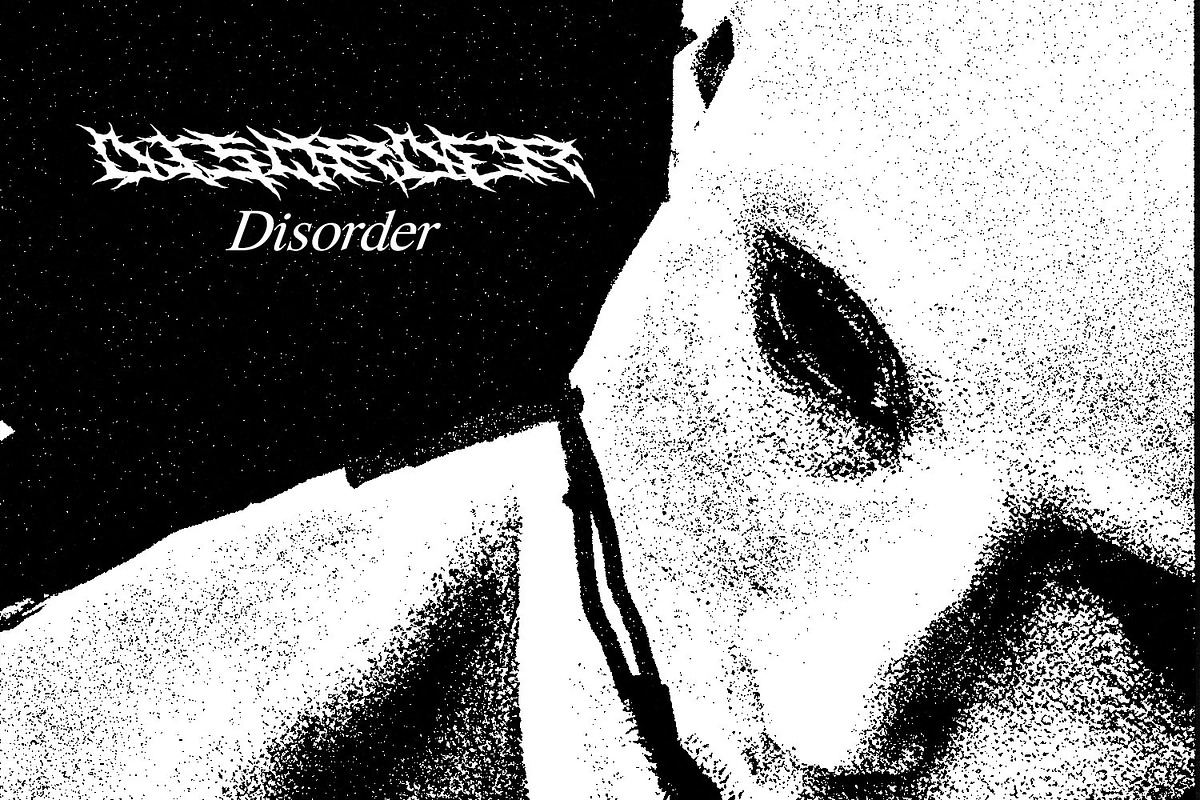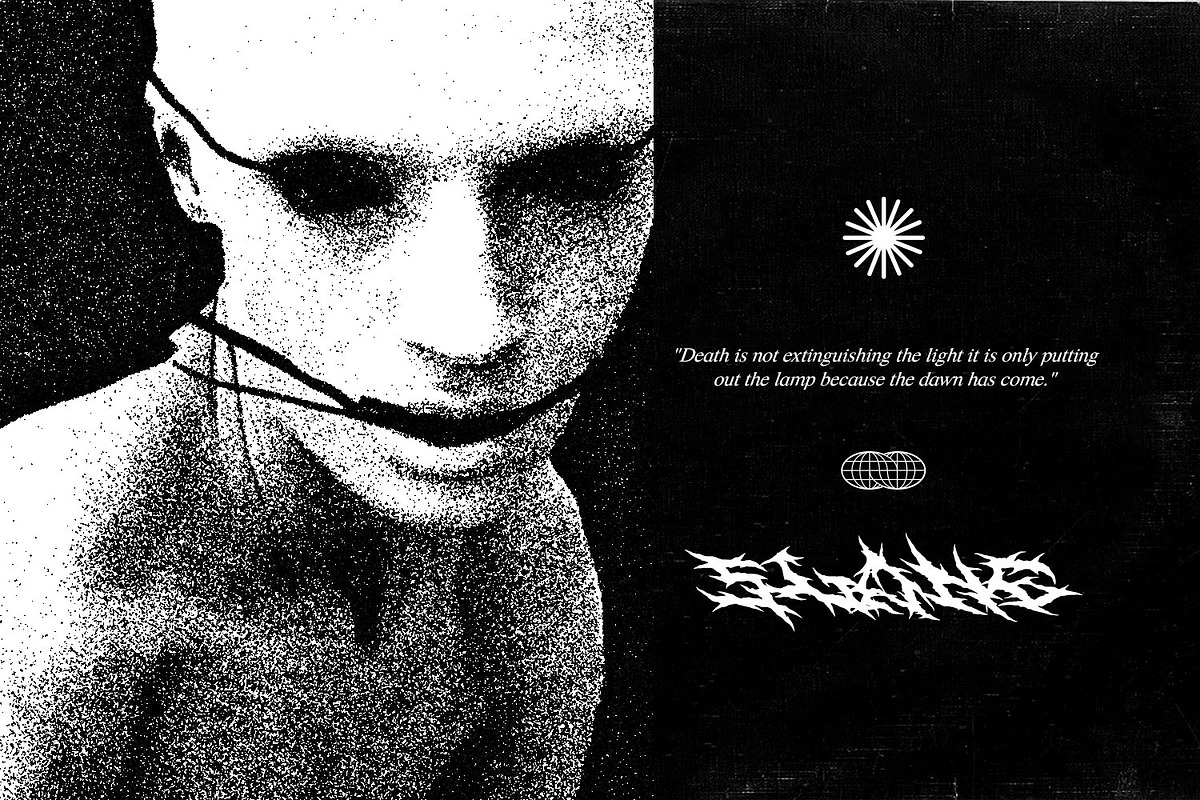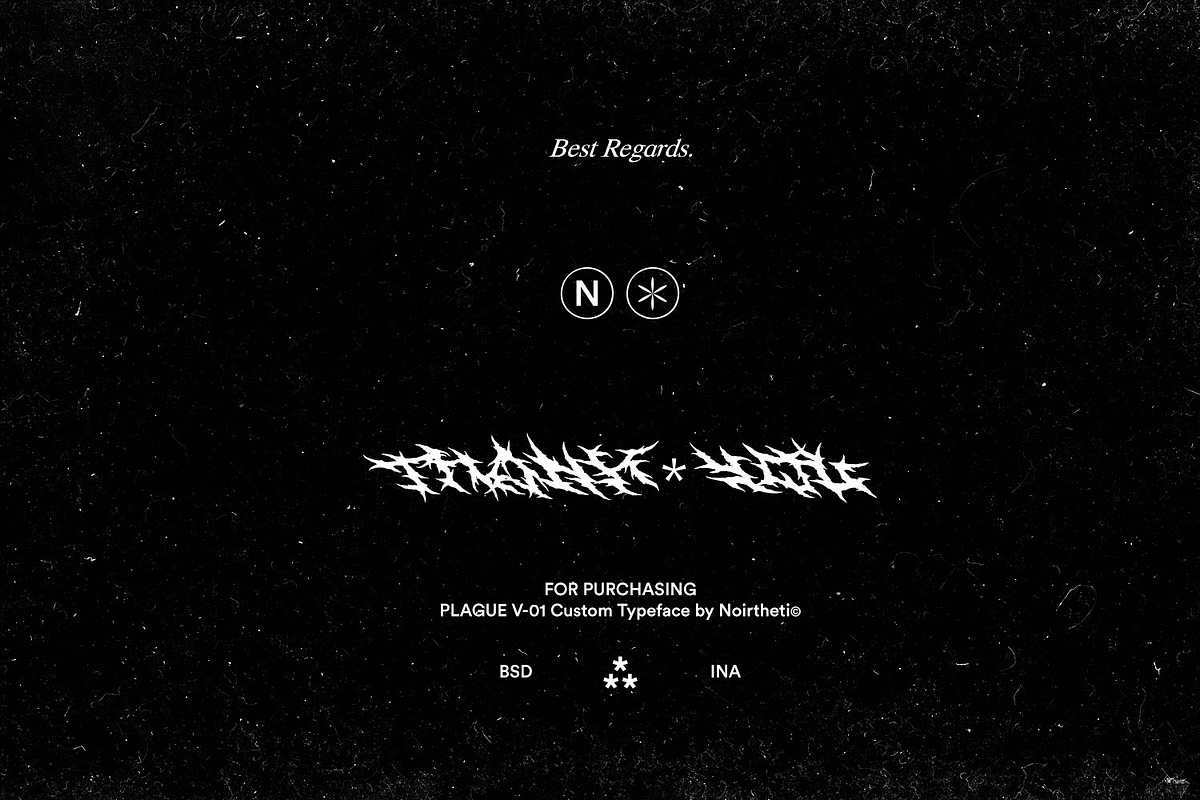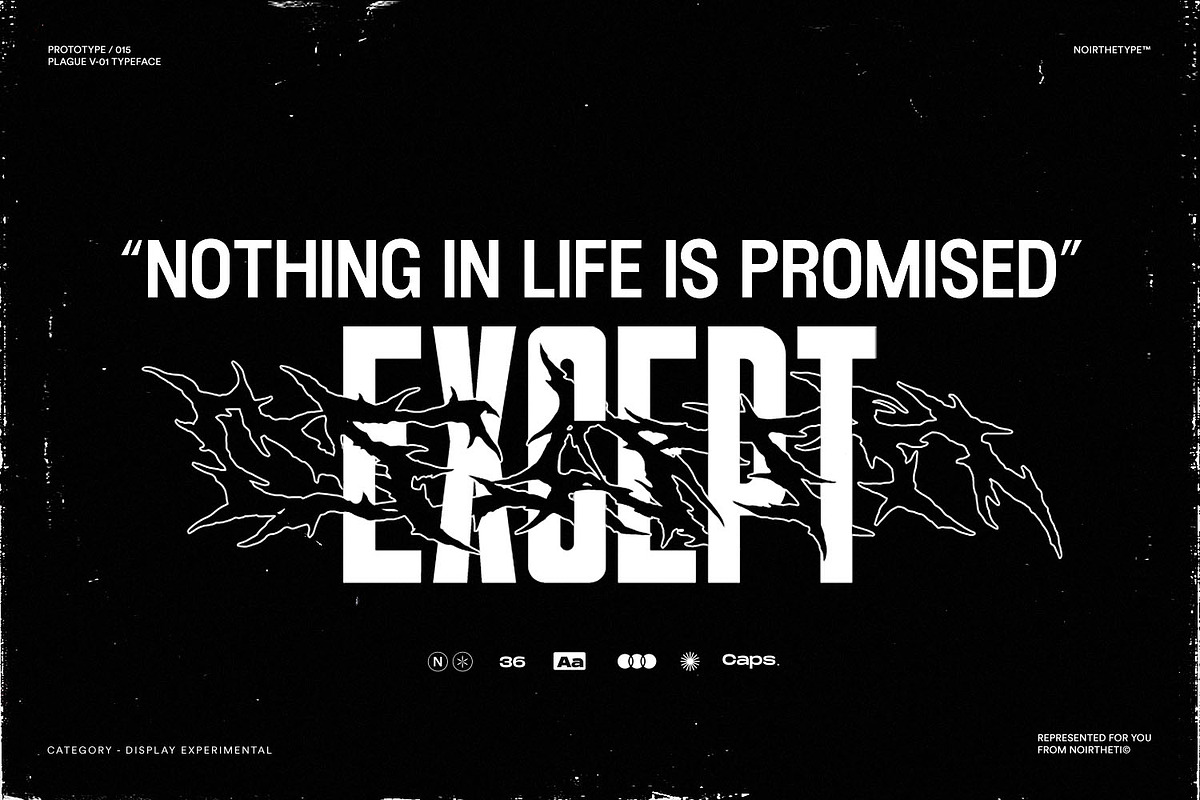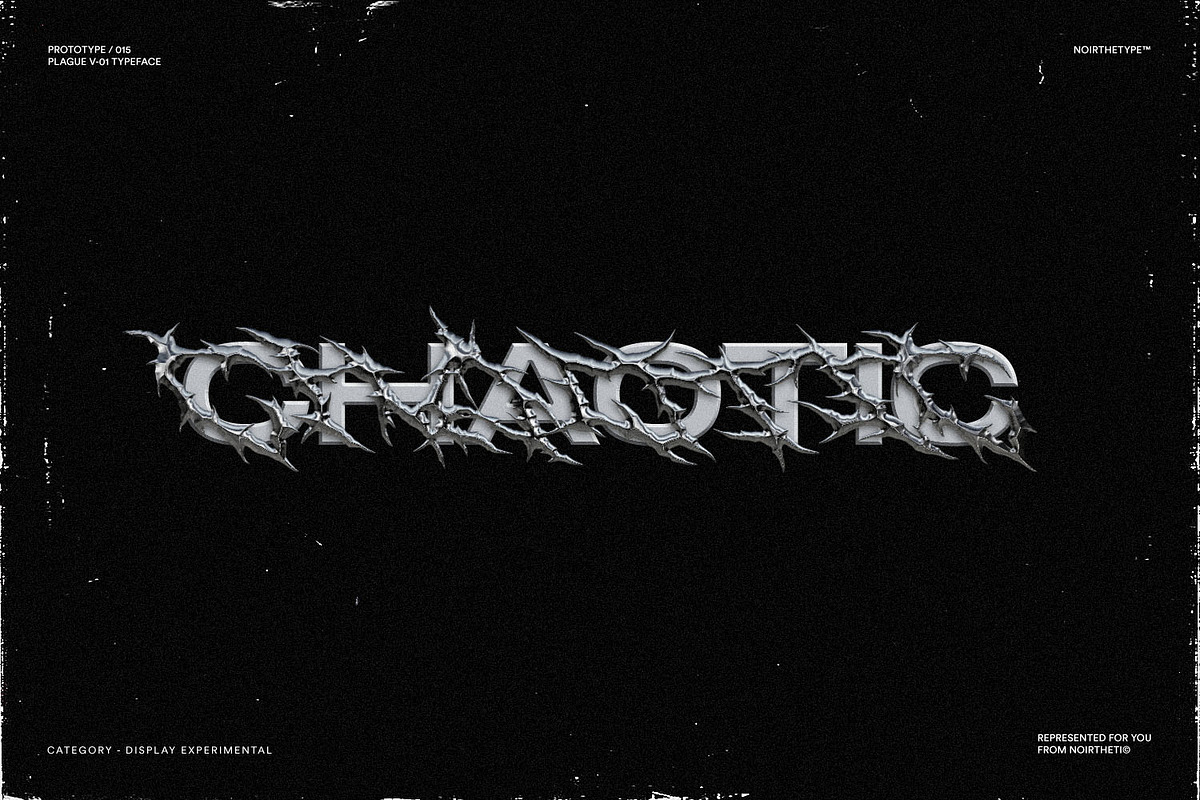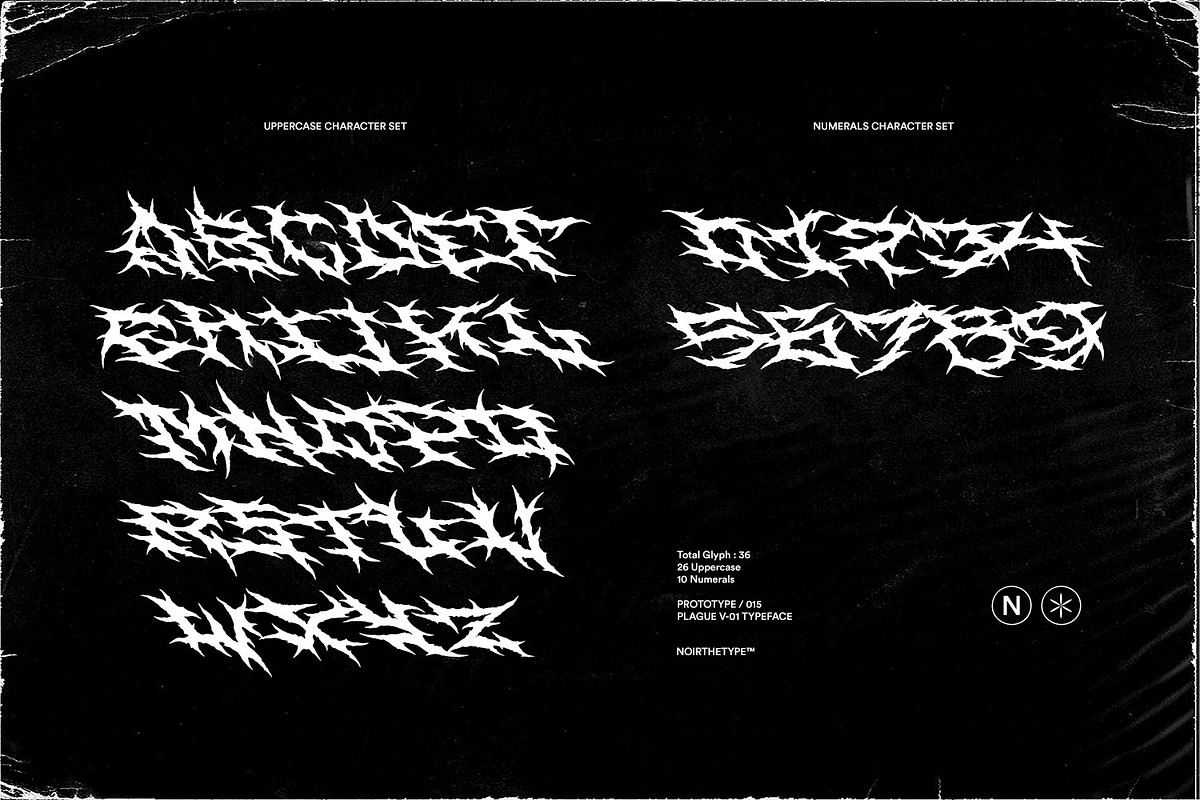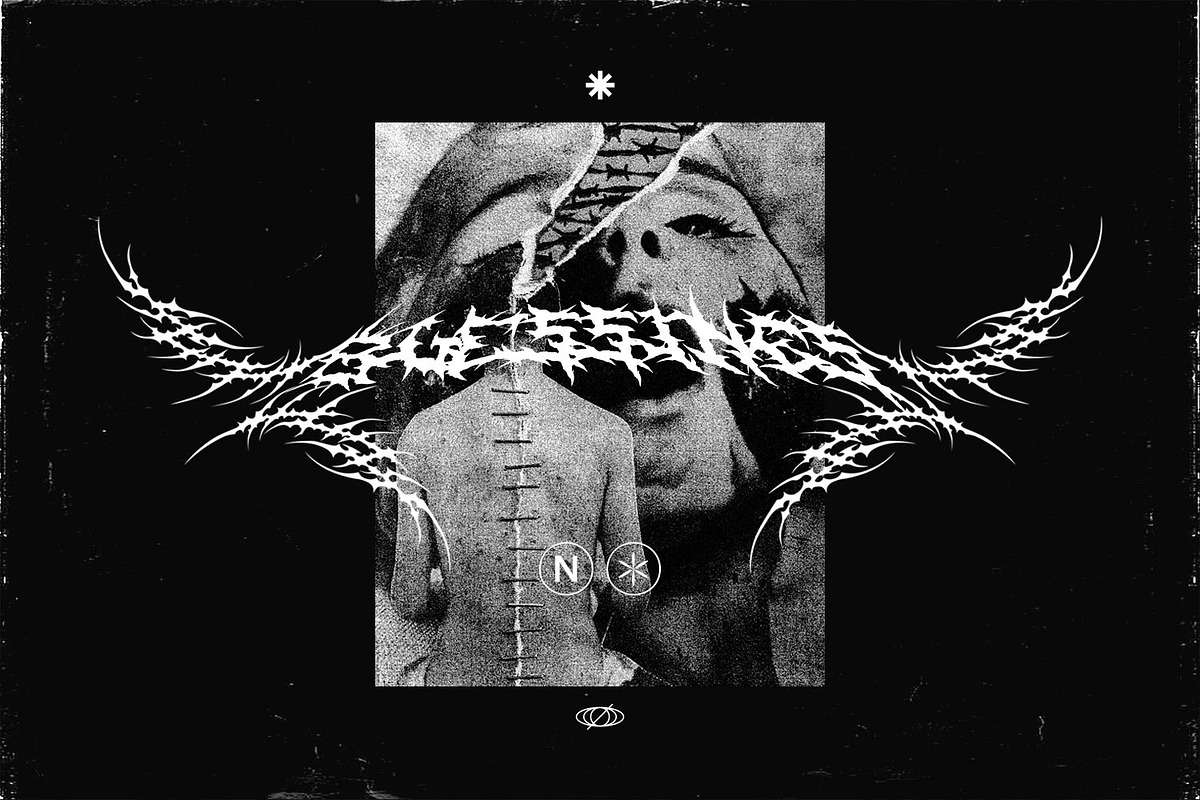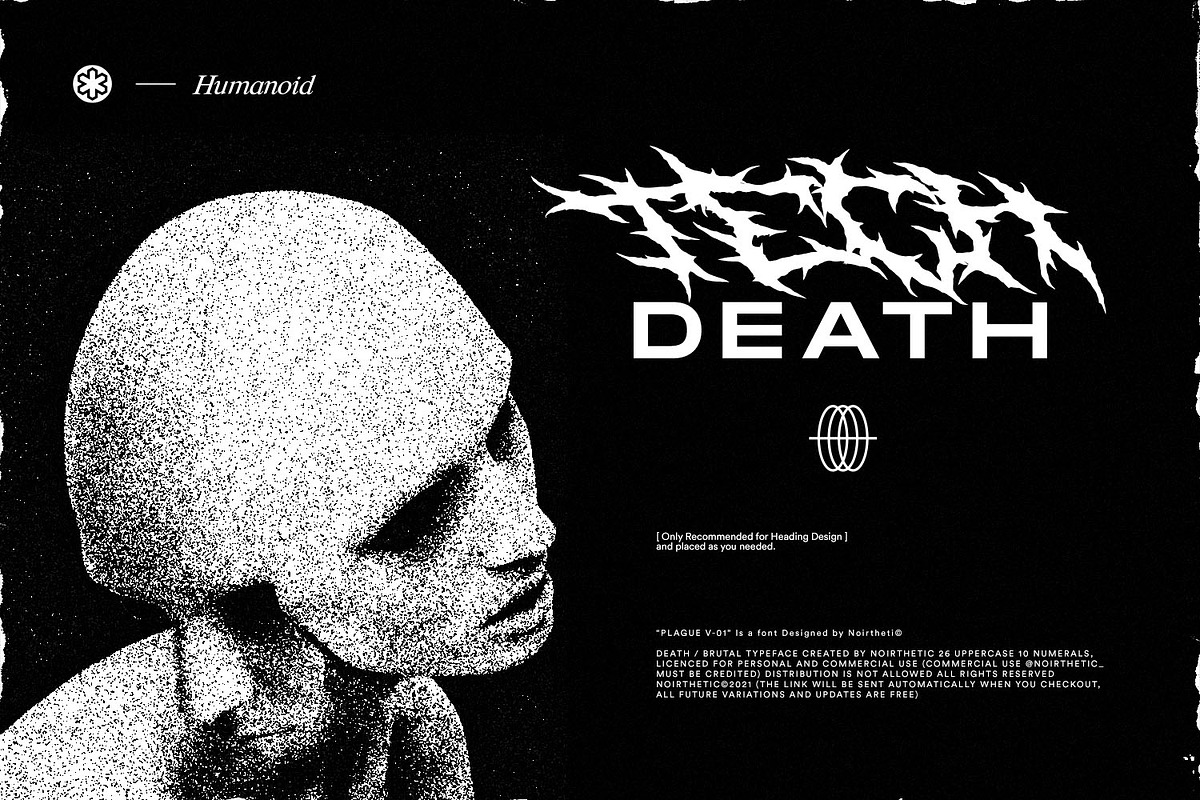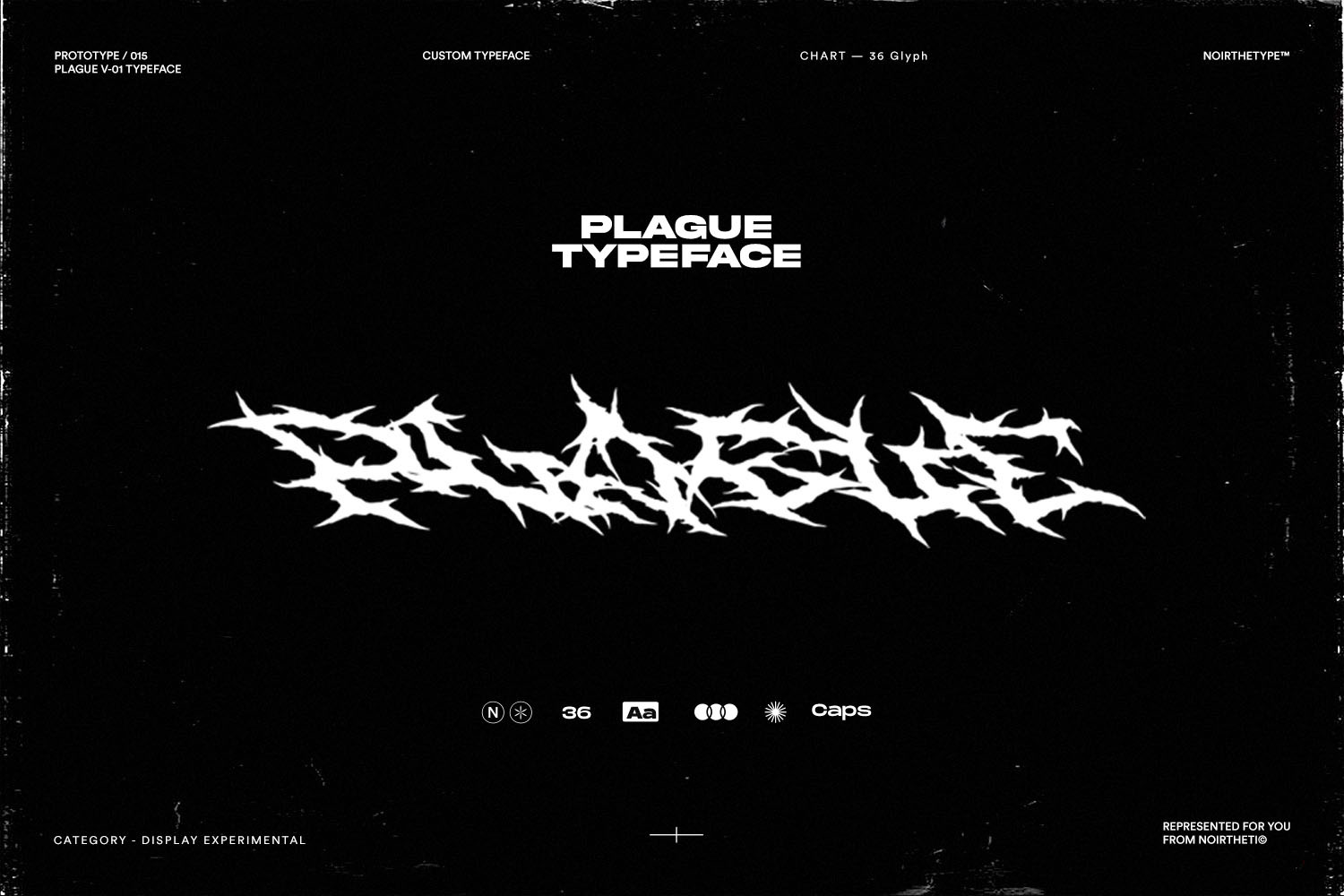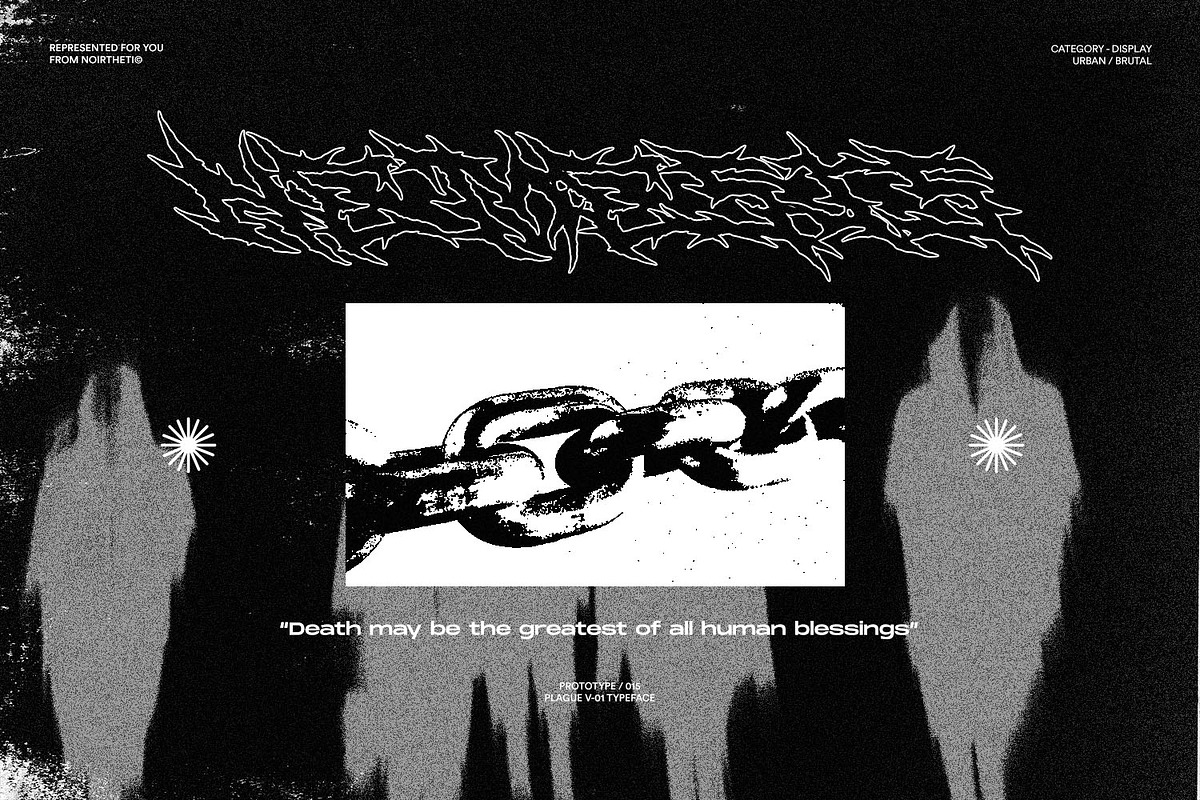
PLAGUE - Brutal Typeface
"PLAGUE - Brutal Typeface" is a font designed by Noirtheti©
Inspired by the Punk, Brutal, Deathmetal theme with a Urban touch and keeping things Dark basic. Perfect for use in your projects related to Merch Design, Poster, and much more!